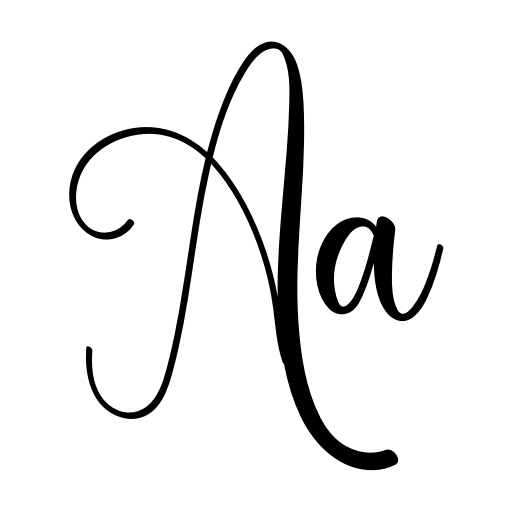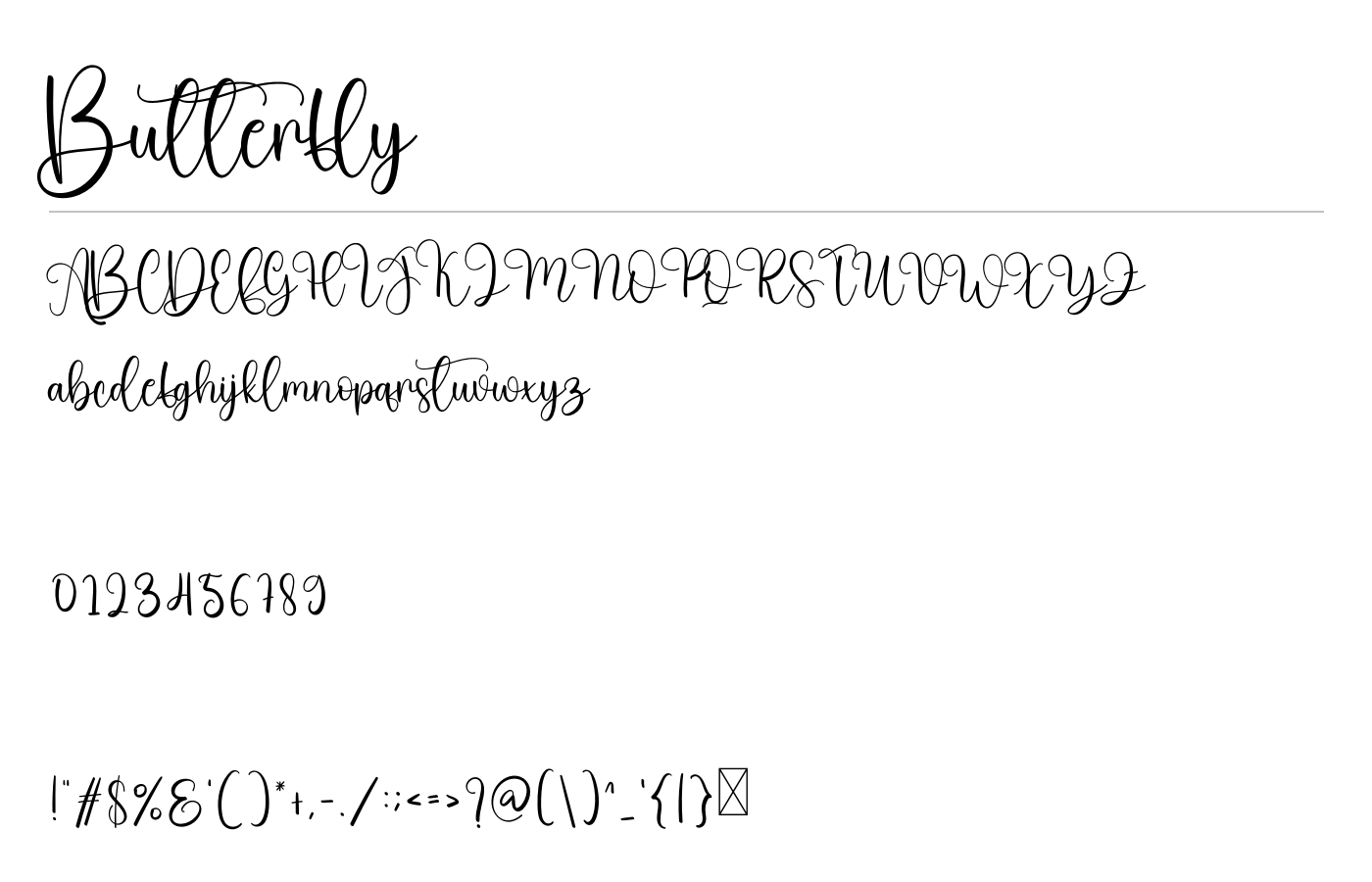
Butterfly is a delicate and elegant script font characterized by its thin, flowing strokes and graceful swashes, giving it a handwritten, calligraphic feel. Its light weight and high contrast in stroke width make it perfect for feminine, romantic, or whimsical designs, such as wedding invitations, fashion logos, and boutique branding. This font works best in larger sizes for headlines or decorative purposes, where its intricate style can truly shine and add a touch of sophistication.
Butterfly Font
About Butterfly Font